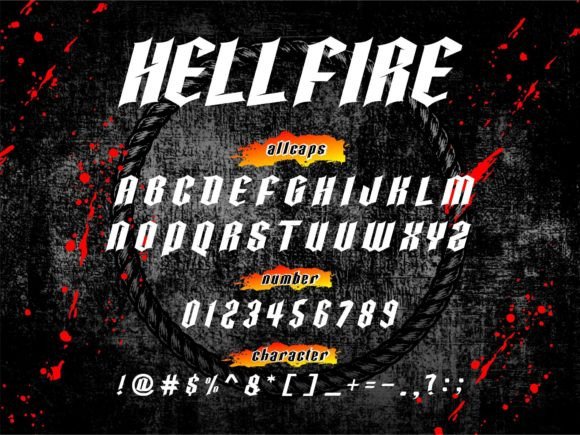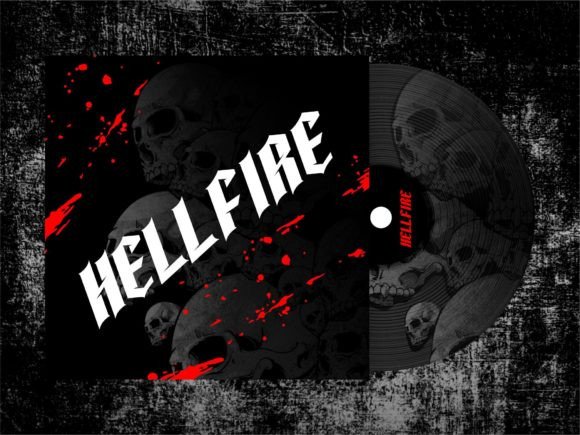
The Perfect Spark to Ignite Your Designs
There’s nothing quite like the thrill of stumbling upon a new font that sets your creative juices on fire. For designers, the hunt for that perfect typeface is a constant quest, and today, we’re excited to introduce you to a game-changer: Hellfire Font.
Designed to make a statement, Hellfire Font is a modern black letter font with a bold and unique swift cut that’s guaranteed to elevate your designs. Whether you’re working on product packaging, branding, or creating eye-catching posters, Hellfire Font is the perfect addition to your toolkit. Its versatility and bold personality make it an invaluable asset for any designer looking to add a touch of drama to their work.
Hellfire Font Key Features
- Font Family: Hellfire is a display font designed to evoke a sense of drama and intensity.
- Unique Characteristics: Hellfire features a distinctive, fiery design element that adds a touch of drama to any text, making it ideal for titles, headings, and other display typography.
Designer Review: Hellfire Font
First off, let me say that the Hellfire font is quite striking. ✨ Its bold, fiery personality makes it a great choice for anything that needs a bit of edginess. The font’s dramatic flair is sure to grab attention and make a lasting impression. It’s perfect for use in titles, headings, or any other text that needs to stand out.
The font’s versatility is another major plus. It works well in both digital and print formats, making it a great choice for a wide range of applications. Whether you’re designing a website, a brochure, or a logo, Hellfire is sure to bring some excitement to the table.
- ✨ Striking, bold personality that grabs attention
- ✨ Versatile design that works well in both digital and print formats
- ✨ Great for use in titles, headings, or any text that needs to stand out
- ⚠️ Can be overwhelming in large blocks of text
- ⚠️ May not be suitable for use in more conservative or traditional designs
Overall, I think the Hellfire font is a great choice for designers who want to add a bit of excitement and flair to their work. While it may not be suitable for every project, it’s definitely a great option to consider when you need something that’s going to make a statement.
Tips for Getting the Most Out of Hellfire Font
Some tips for getting the most out of Hellfire font include:
– Using it sparingly to add emphasis and drama
– Pairing it with other fonts to create a bold and edgy look
– Experimenting with different font sizes and styles to create visual interest
Common use cases for Hellfire font include:
– Creating bold and eye-catching headlines
– Designing edgy and avant-garde graphics
– Adding a touch of drama and flair to your designs